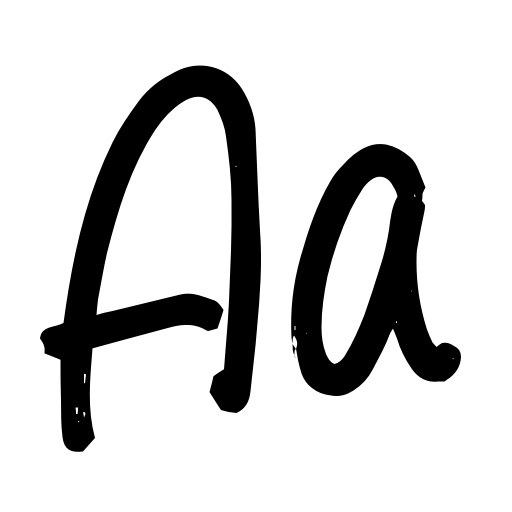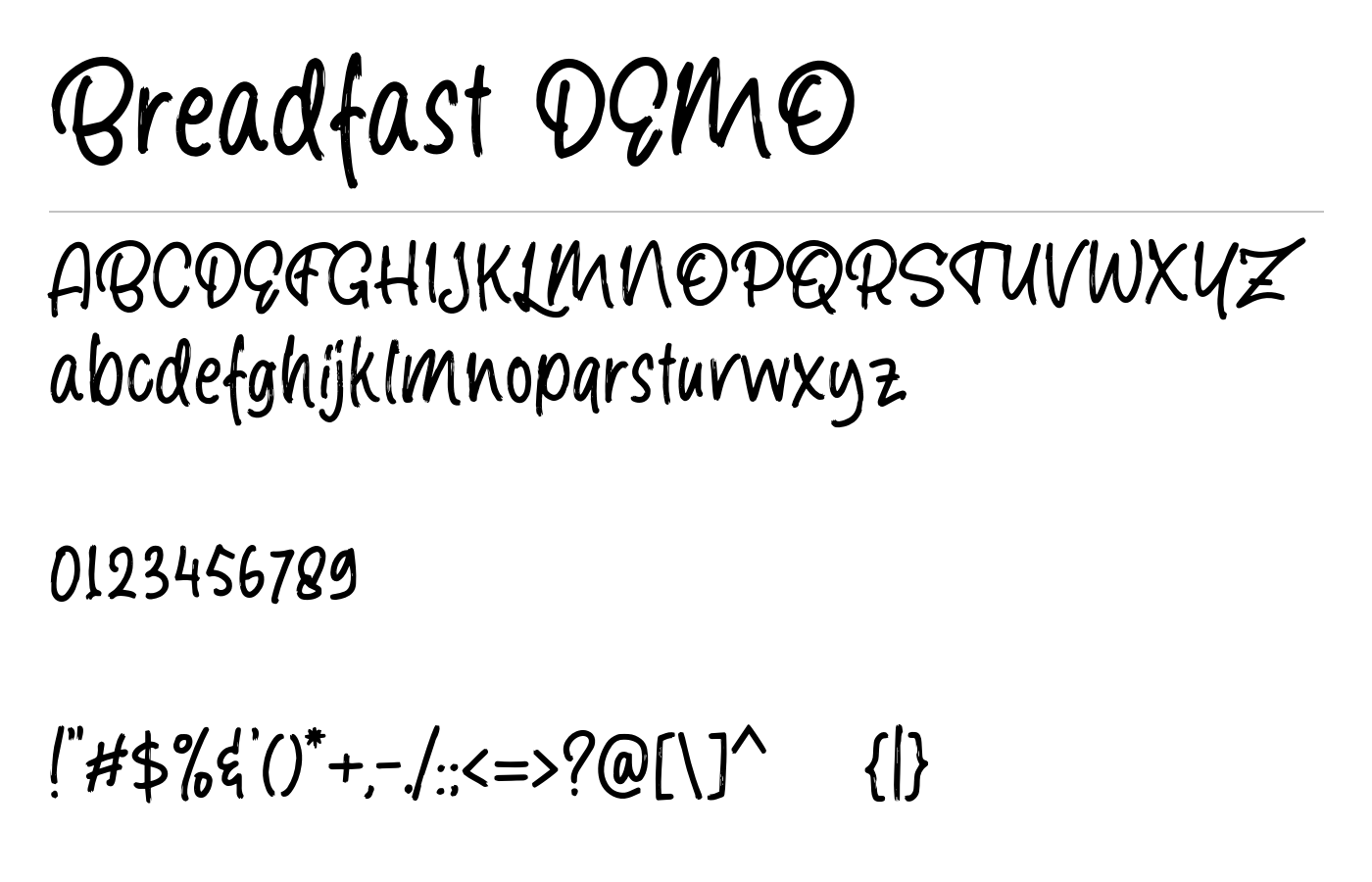
Breadfast DEMO is a lively and casual hand-drawn script font with a playful, slightly irregular stroke that gives it a natural and friendly feel. Its light weight, moderate contrast, and informal letterforms make it perfect for creative projects, branding, and designs that want to convey warmth and approachability. This font works well in packaging, social media graphics, and headlines where a handwritten, personal touch is desired.
Breadfast DEMO Font
About Breadfast DEMO Font